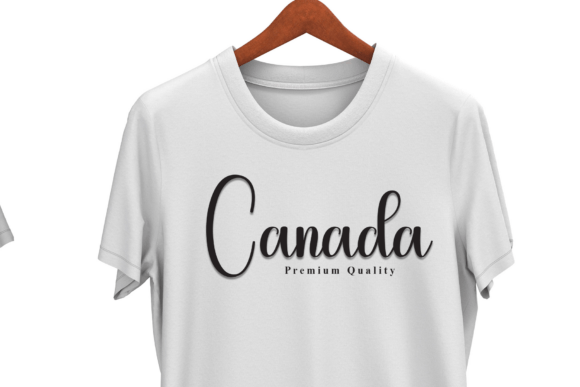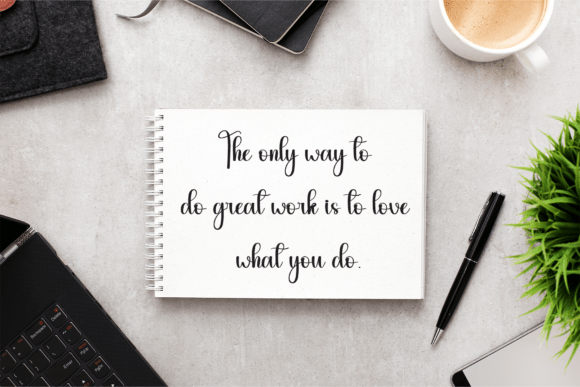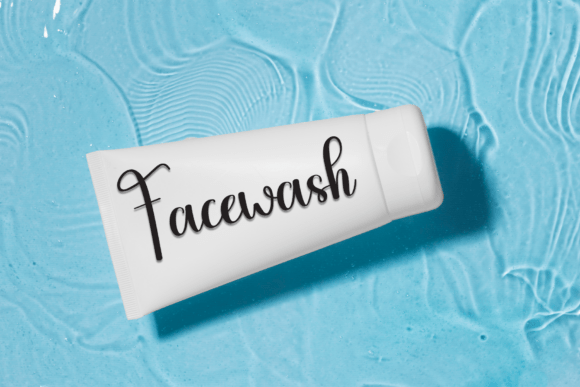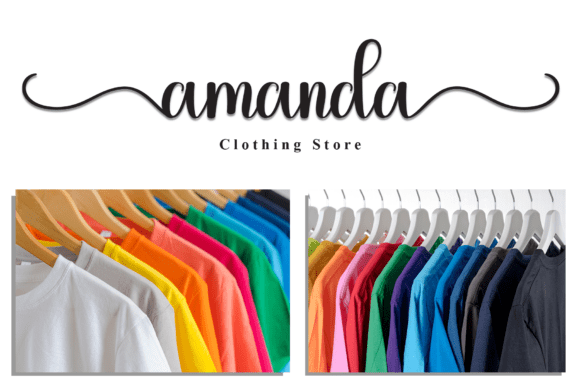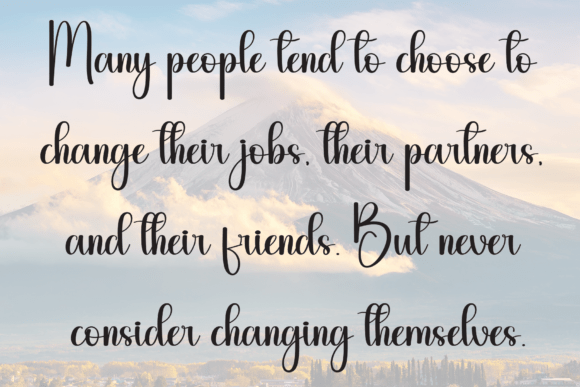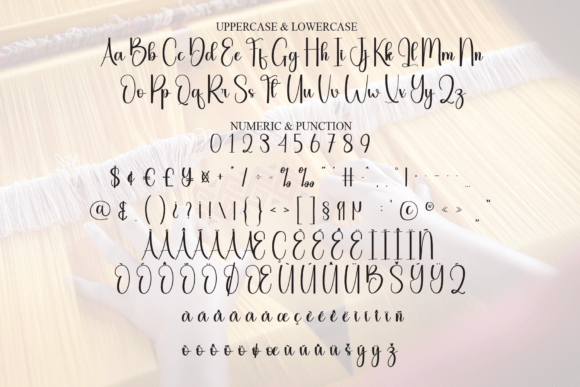
Crafter Font: Elevate Your Designs with a Stylish Handwritten Script
In the world of typography, fonts play a crucial role in conveying the tone and personality of a design. For crafters, designers, and artists, finding the perfect font can be a daunting task. However, if you’re looking for a stylish handwritten script font that blends modern elegance with a playful touch, look no further than Crafter Font. In this article, we’ll explore the features, benefits, and uses of Crafter Font, and why it’s an excellent addition to any design project.
What is Crafter Font?
Crafter Font is a beautiful, handwritten script font that exudes a sense of sophistication and playfulness. Its fluid strokes and charming curves bring a personal feel to any design, making it perfect for a wide range of applications. Whether you’re creating logos, packaging, invitations, or social media graphics, Crafter Font is an excellent choice.
Key Features of Crafter Font
- Fluid Strokes: Crafter Font features smooth, fluid strokes that give it a natural, handwritten feel.
- Charming Curves: The font’s charming curves add a touch of elegance and sophistication to any design.
- Modern Elegance: Crafter Font blends modern elegance with a playful touch, making it perfect for designs that require a balance of sophistication and whimsy.
- High Versatility: The font is highly versatile and can be used for a wide range of design projects, from logos and packaging to invitations and social media graphics.
Benefits of Using Crafter Font
So, why choose Crafter Font for your design projects? Here are just a few benefits of using this stylish handwritten script font:
- Personal Touch: Crafter Font adds a personal touch to any design, making it perfect for crafters, artists, and small business owners who want to stand out.
- Emotional Connection: The font’s handwritten feel creates an emotional connection with the viewer, making it ideal for designs that require a personal and relatable tone.
- Flexibility: Crafter Font is highly flexible and can be used for a wide range of design projects, from digital graphics to print materials.
- Easy to Read: Despite its elegant and cursive nature, Crafter Font is easy to read, making it perfect for designs that require a clear and concise message.
Uses of Crafter Font
Crafter Font is an incredibly versatile font that can be used for a wide range of design projects. Here are just a few examples:
- Logos: Use Crafter Font to create a unique and memorable logo for your business or brand.
- Packaging: Add a personal touch to your product packaging with Crafter Font.
- Invitations: Create beautiful and elegant invitations for weddings, parties, and other special events.
- Social Media Graphics: Use Crafter Font to create eye-catching social media graphics that stand out from the crowd.
Tips for Using Crafter Font
To get the most out of Crafter Font, here are a few tips to keep in mind:
- Pair with Other Fonts: Experiment with pairing Crafter Font with other fonts to create a unique and visually appealing design.
- Use for Headlines: Use Crafter Font for headlines and titles to add a touch of elegance and sophistication.
- Experiment with Colors: Don’t be afraid to experiment with different colors and textures to add depth and interest to your design.
In conclusion, Crafter Font is a stylish handwritten script font that blends modern elegance with a playful touch. Its fluid strokes and charming curves bring a personal feel to any design, making it perfect for logos, packaging, invitations, and social media graphics. With its high versatility, emotional connection, and ease of use, Crafter Font is an excellent addition to any design project. Whether you’re a crafter, designer, or artist, Crafter Font is sure to elevate your designs and help you stand out from the crowd.